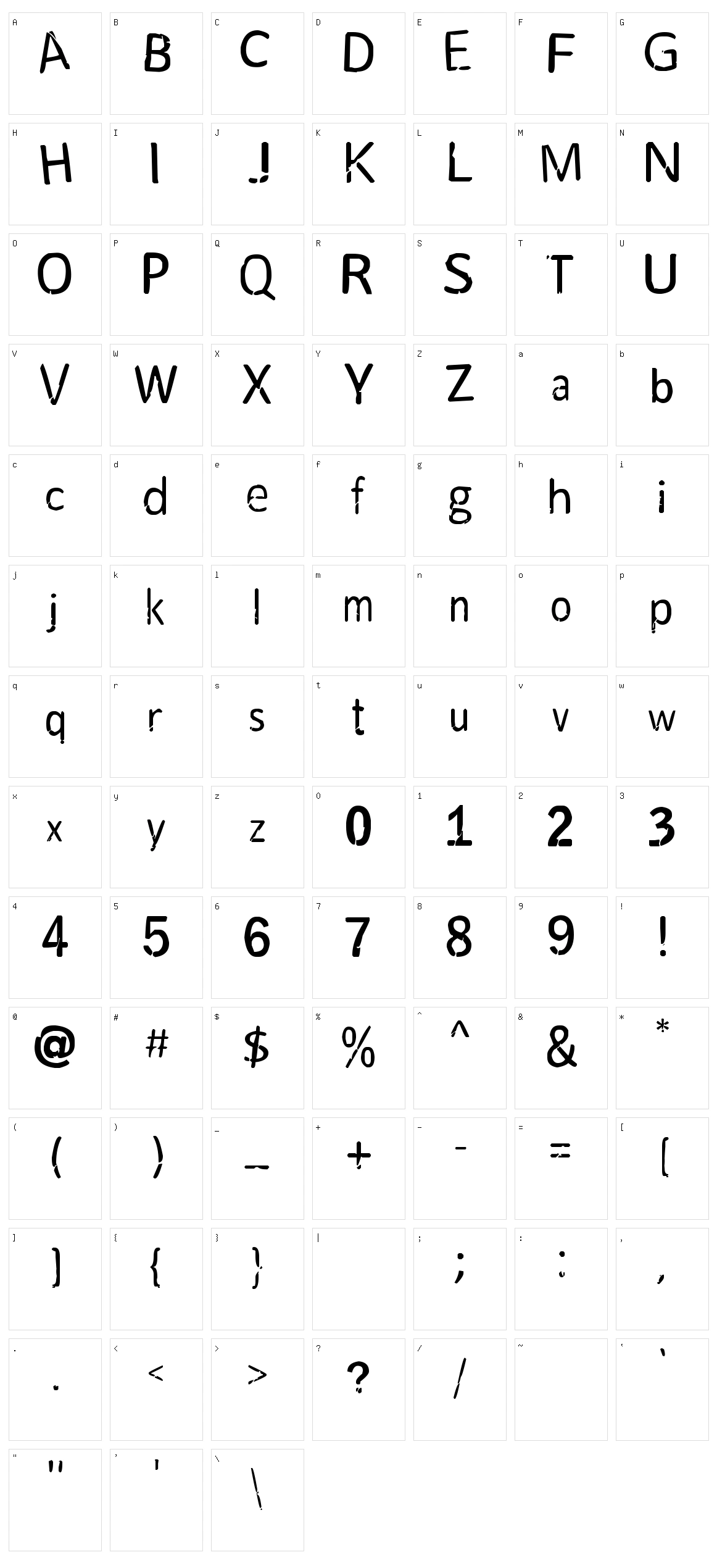
The free font MindPlay is carefully designed by Mystery Fonts, showcasing a thoughtful balance of creativity and usability and falls under the Distorted font style. When you download the ZIP file, it contains only 13.75 KB of font files, making it lightweight and quick to download. Please review the license details below to understand permitted usage and distribution rights. If license information is not available, we recommend using this font for personal projects only or contacting the author directly for commercial usage permissions.